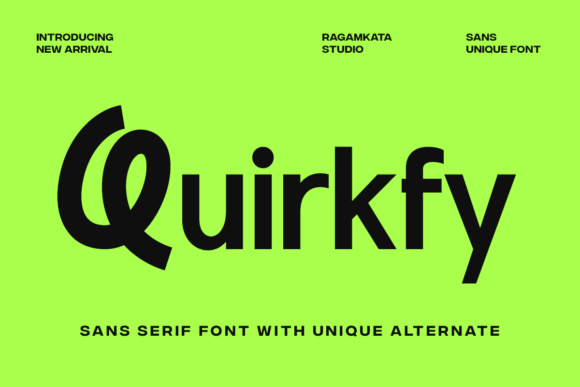
Quirkfy: A Playful Sans Serif for Editorial Personality
It was a quiet Tuesday morning—coffee still warm, layout files open—and I was adjusting the header font for a new seasonal newsletter series. Not the body text, not the captions, but that first impression: the name of the series, set large and centered at the top of each email graphic. I’d cycled through three clean sans serifs already—capable, neutral, safe—but none carried the gentle spark the content deserved. That’s when I opened Quirkfy.
A Typeface with Quiet Confidence
Quirkfy is a bold sans serif font, yes—but it’s the kind of boldness that leans in rather than shouts. Its rhythm feels intentional: slightly widened proportions, soft but decisive curves, and just enough quirk in the terminals and counters to suggest personality without sacrificing clarity. The uppercase “Q” has a subtle tail that curls like a knowing smile; the lowercase “a” and “g” offer friendly, open alternatives. These aren’t gimmicks—they’re thoughtful touches that make the typeface feel hand-tuned for editorial warmth.
I tested Quirkfy across several real layouts: a digital magazine feature page on slow living, a printable coaching workbook for early-career creatives, and a recipe ebook designed for both screen reading and home printing. In each case, it anchored the tone—not as background, but as a quiet collaborator. It doesn’t dominate; it invites. That’s rare in display fonts, especially sans serifs meant for titles and covers.
Where Quirkfy Finds Its Rhythm
Quirkfy shines brightest where voice matters most: blog headers, chapter openers, pull quotes, cover titles, and newsletter graphics. In the coaching workbook, I used it for section headers (“Clarity,” “Commitment,” “Next Steps”)—each word felt grounded yet approachable, reinforcing the guide’s supportive intent. For the recipe ebook, it became the title treatment on every chapter divider (“Spring Greens,” “Late-Summer Tomatoes,” “Winter Pantry Staples”), giving seasonal rhythm visual weight without stiffness.
Its alternate letterforms add nuance without complexity. I toggled them selectively—just the “e” and “s” in longer titles—to soften repetition and introduce subtle variation. No heavy lifting required: most design apps support OpenType features, and Quirkfy’s alternates are intuitive, not ornamental. They breathe life into static text, especially in PDF exports or print-ready files where typographic texture holds up beautifully.
Readability Across Contexts
On screen, Quirkfy performs well at larger sizes—18pt and up—with generous x-height and open apertures that help maintain legibility even on mobile previews. It’s not built for long-form body copy, nor should it be. Its strength lies in moments of emphasis: a pull quote set at 24pt over a serif paragraph, a cover title at 48pt against ample white space, a worksheet header that signals intention before the first instruction begins. Trying to use it for dense captions or footnotes would dilute its impact—and strain readability.
In print, it holds up with quiet confidence. I ran test prints on uncoated paper for the coaching workbook, and the ink spread gently around its rounded forms without muddying distinction. For the recipe ebook, exported as a PDF with embedded fonts, Quirkfy rendered crisply across devices—no fallback surprises, no missing glyphs. That reliability matters when your audience downloads and saves your work.
Pairing With Purpose
Quirkfy pairs naturally with understated companions. For body text, I reached for a warm, highly readable serif—think a contemporary Garamond or a relaxed Merriweather—where contrast supports hierarchy without competition. For captions, navigation labels, or sidebar notes, a clean, neutral sans serif (like Inter or Source Sans) keeps the interface calm and functional. The goal isn’t visual harmony for its own sake—it’s creating a system where Quirkfy’s personality has room to resonate, while supporting text stays effortlessly legible.
I avoided pairing it with other expressive fonts—no script accents, no tight geometric sans serifs—because Quirkfy’s charm lies in its balance: playful but not childish, bold but not brash. It doesn’t need contrast to stand out; it needs context to settle in.
Practical Notes Before You Use It
Before integrating Quirkfy into client work, templates, or paid digital products, I checked the full package: multiple weights (Light, Regular, Bold), true italics, standard and discretionary ligatures, and extended Latin character support—including accented characters common in lifestyle and wellness content. It’s licensed for commercial use, including ebooks, newsletters, and printable downloads, which made it viable for all my current projects.
One note: if your publication includes multilingual content beyond Western European languages—or requires extensive mathematical or technical symbols—verify glyph coverage directly in the font file. And always test export behavior in your target format: some PDF generators handle OpenType features inconsistently, so previewing final output is non-negotiable.
Quirkfy won’t solve every typographic challenge. It’s not the font for legal disclaimers, academic citations, or data-heavy dashboards. But for creators who care how their words *feel*—not just how they read—it’s a thoughtful, reliable tool. It brings warmth to digital spaces that often default to cool efficiency. It gives printed guides a quiet sense of care. And it reminds us, gently, that even in typography, personality has its place—when it’s earned, edited, and used with intention.